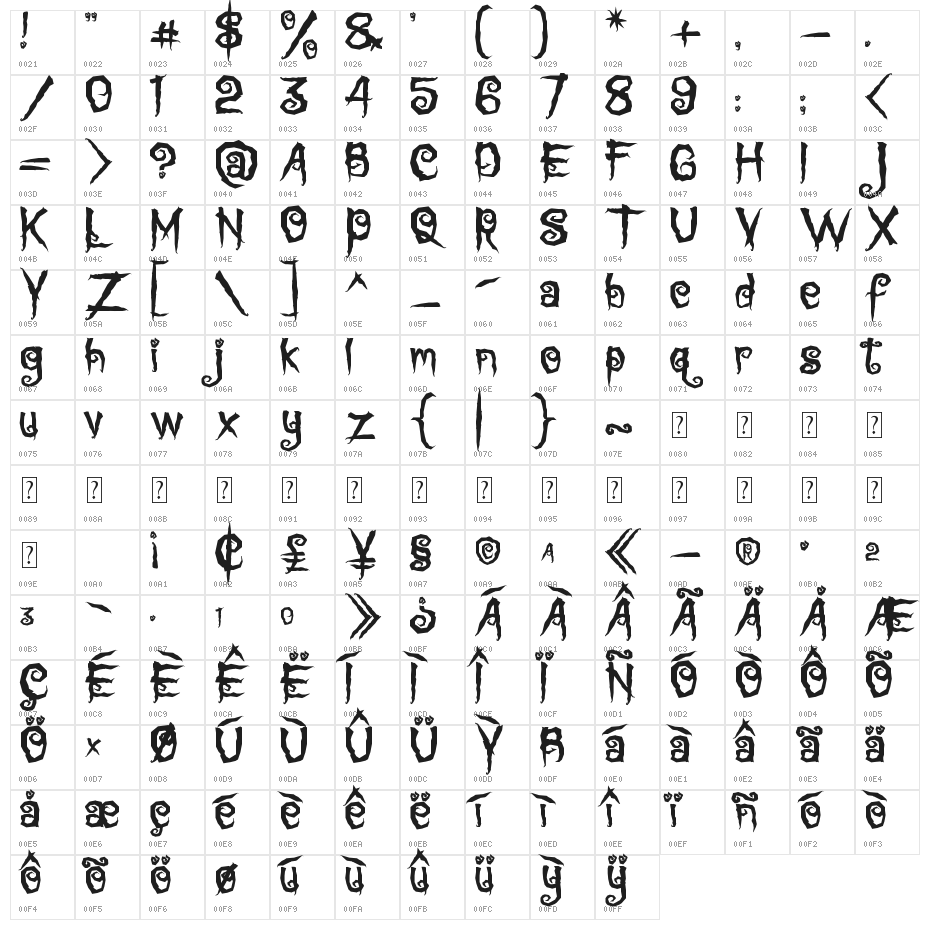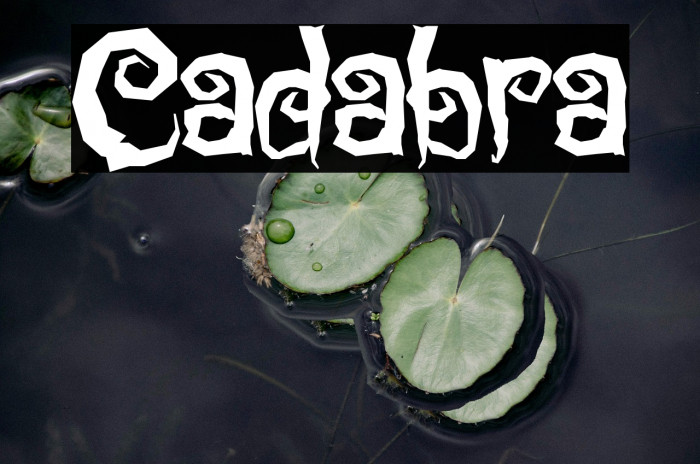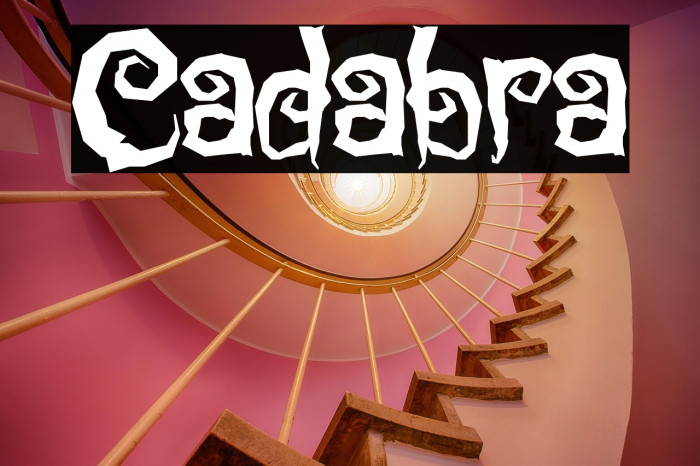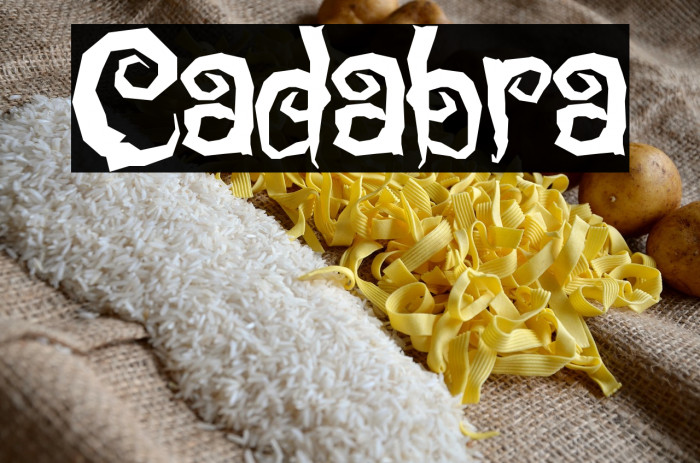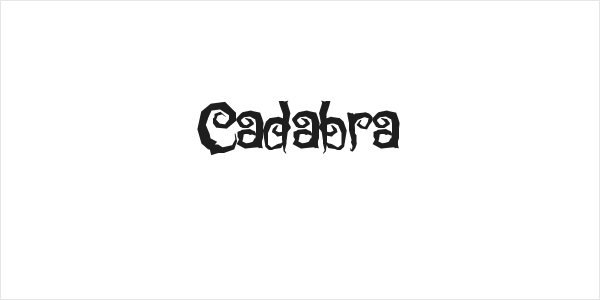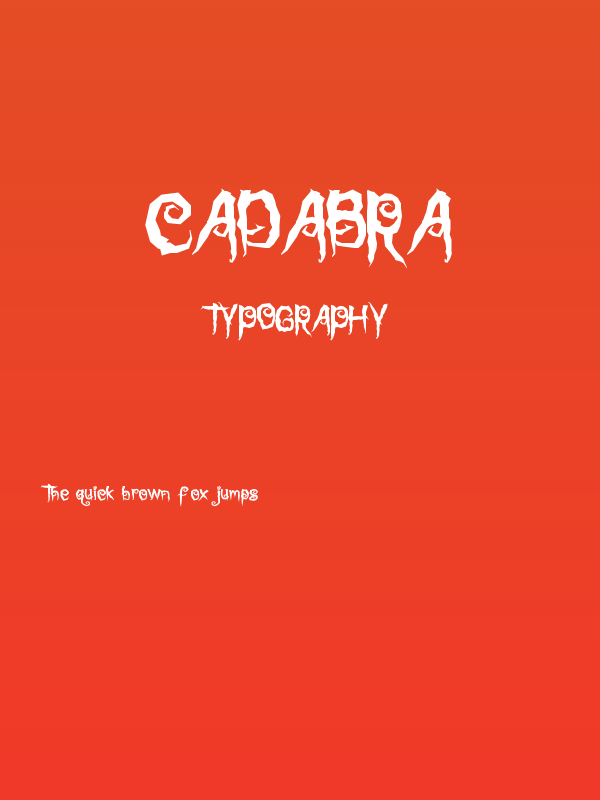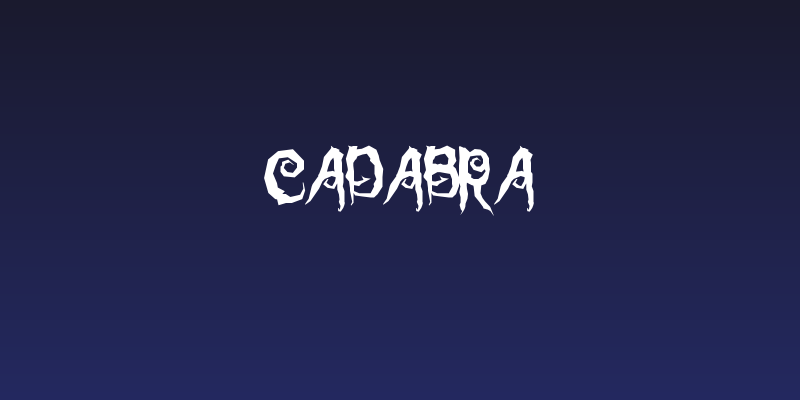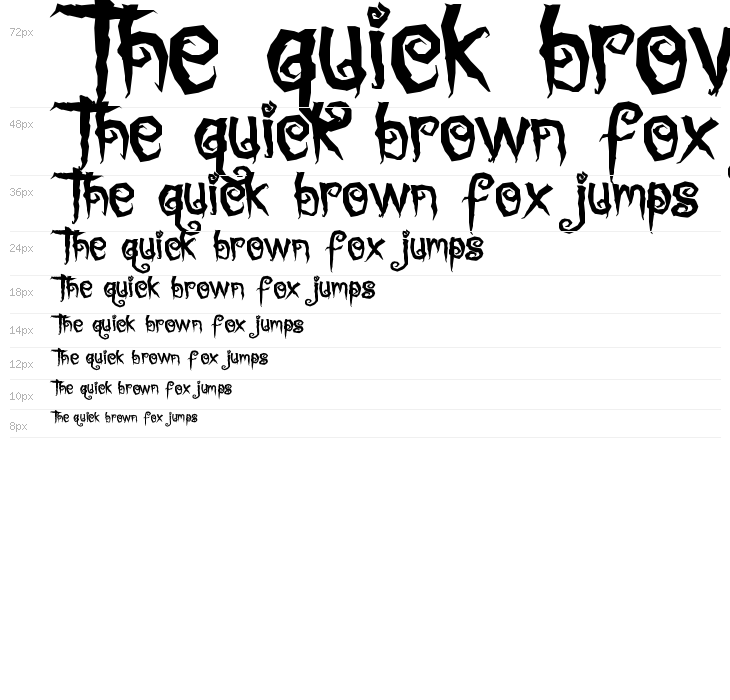
Cadabra Font
Cadabra Description
This font features a highly decorative and whimsical style, characterized by its jagged, irregular strokes and playful, almost mystical appearance. The uppercase and lowercase letters share a consistent theme of exaggerated, sharp edges and curves, giving the typeface a dynamic and energetic feel. Numbers and special characters follow the same design principles, ensuring a cohesive look across all glyphs. The font's unique style makes it stand out, ideal for projects that require a touch of fantasy or a magical theme.
| Proposed Projects | Perfect for fantasy-themed posters, Halloween invitations, magical book covers, or any project needing a mystical touch. |